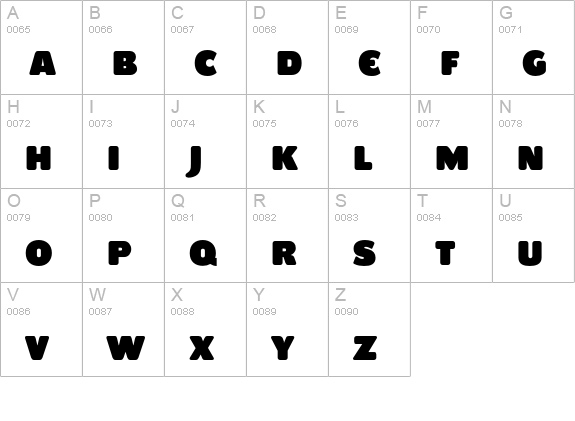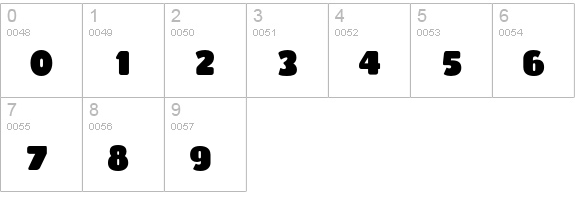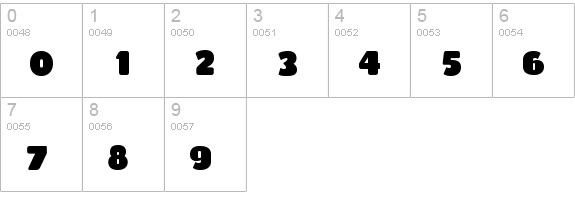
Cepo-Plain Font Details
Cepo-Plain is a modern and sleek font that exudes simplicity and elegance. With its clean lines and minimalist aesthetic, this versatile typeface is perfect for a wide range of design projects, from branding to editorial design. The Cepo-Plain font offers a timeless and sophisticated look that will elevate any design it is used in. What makes Cepo-Plain even more appealing is that it is available for free download at FontsMarket.com. This means that designers and creatives can easily access this beautiful font without any cost, making it a valuable addition to any font library. Whether you're working on a personal project or a client's design, Cepo-Plain will bring a touch of class and sophistication to your work. Download Cepo-Plain today and experience the elegance and versatility of this stunning font for yourself.